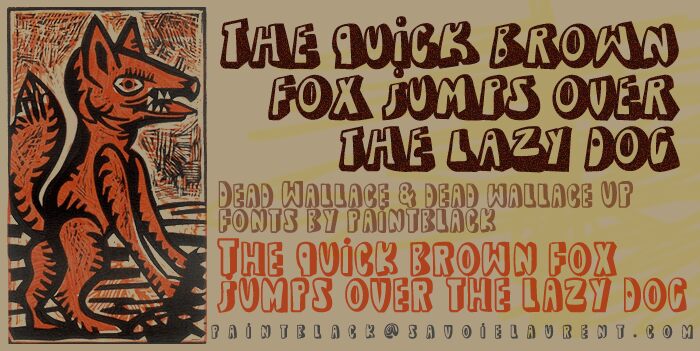
Dead Wallace UP by Paintblack is a free outlined cartoon display font with tall, uneven letters and a mischievous hand-drawn edge. Its thick contours, pinched curves, and changing widths make the alphabet look like lettering cut for an offbeat comic title.
It can turn a title into part of the artwork for monster posters, arcade games, or Halloween events. The crooked shapes also suit snack packaging and novelty merchandise aimed at younger audiences. Across these uses, the shared link is its mix of goofy exaggeration and mild spookiness.